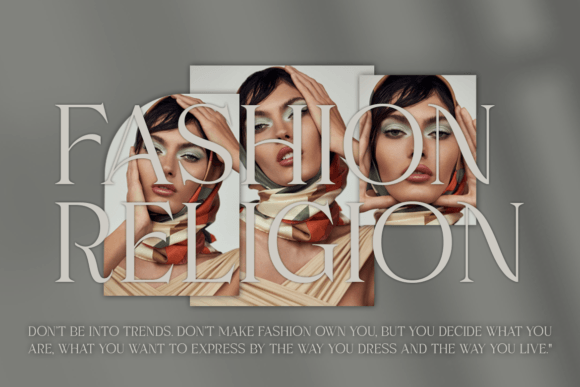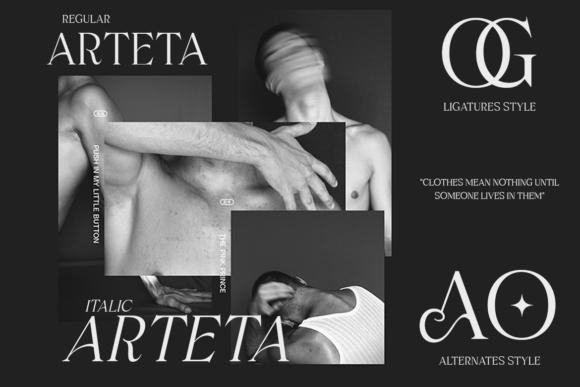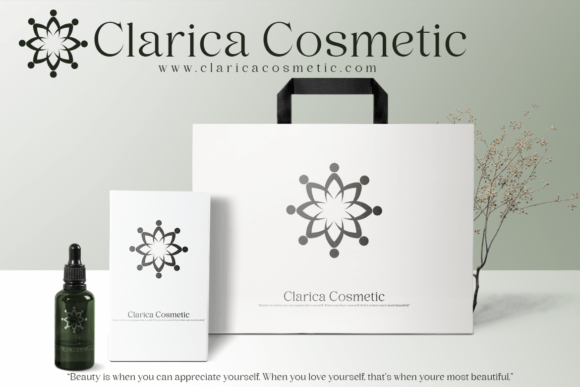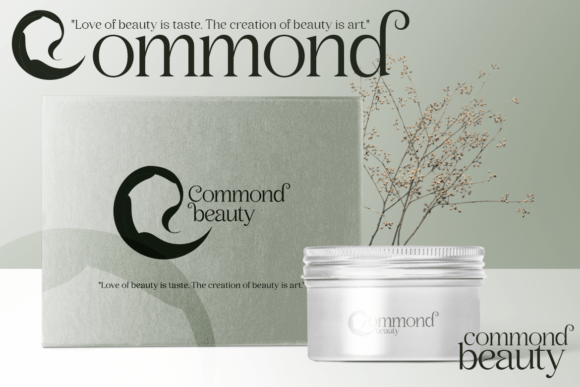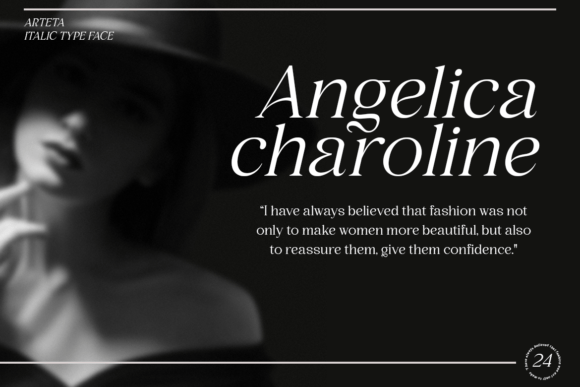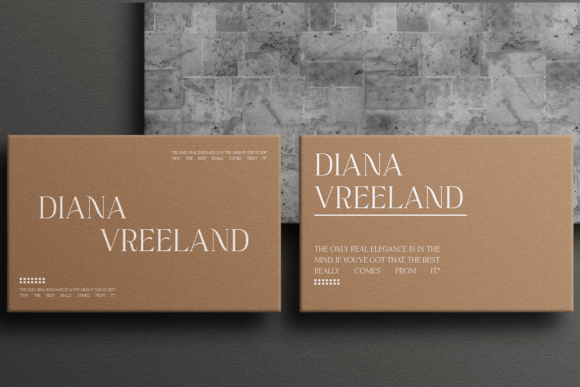
Introducing Arteta Font: Elevate Your Designs with Elegance and Sophistication
In the world of typography, a font can make or break the aesthetic of a design. For those seeking a touch of elegance and sophistication, Arteta Font is an exceptional choice. This stylish serif font is perfect for designers and crafters looking to add a classy flair to their projects. Whether you’re working on wedding invitations, thank you cards, quotes, greeting cards, logos, business cards, or any other design that demands refinement, Arteta Font is the ideal solution.
What Makes Arteta Font Stand Out?
Arteta Font boasts an incredibly elegant serif design that instantly elevates the visual appeal of any project. Its stylish and refined appearance makes it suitable for a wide range of applications, from formal events to corporate branding. The font’s classic serif structure exudes a sense of tradition and reliability, while its clean lines and subtle nuances add a touch of modern sophistication.
Wedding planners, event designers, and stationery enthusiasts will adore Arteta Font for its romantic and luxurious feel. The font’s elegant appearance makes it perfect for:
- Wedding invitations: Set the tone for a sophisticated and memorable wedding celebration.
- Thank you cards: Express gratitude with a touch of class and refinement.
- Quotes and typography art: Add a dash of elegance to inspirational quotes and typographic designs.
- Greeting cards: Create beautiful and heartfelt greeting cards for special occasions.
Arteta Font is PUA (Private Use Area) encoded, making it incredibly easy to access all the glyphs and ligatures. This feature allows designers to:
- Access a wide range of characters and symbols.
- Create beautiful ligatures and swashes.
- Customize their designs with ease.
Arteta Font is not limited to wedding and event designs. Its versatility makes it suitable for a wide range of applications, including:
- Logos: Add a touch of sophistication to your brand’s logo.
- Business cards: Create professional and elegant business cards.
- Packaging design: Elevate your packaging design with a refined and luxurious feel.
- Digital design: Use Arteta Font in digital designs, such as social media graphics and website headers.
Why Choose Arteta Font?
With Arteta Font, designers and crafters can:
- Save time: No need to spend hours searching for the perfect font.
- Enhance their designs: Add a touch of elegance and sophistication to their projects.
- Increase versatility: Use Arteta Font across various design applications.
Arteta Font is an exceptional choice for designers and crafters seeking to add a touch of elegance and sophistication to their designs. With its stylish serif design, PUA encoding, and versatility in design applications, Arteta Font is the perfect solution for a wide range of projects. Whether you’re working on wedding invitations, logos, or business cards, Arteta Font is sure to elevate your designs and leave a lasting impression.